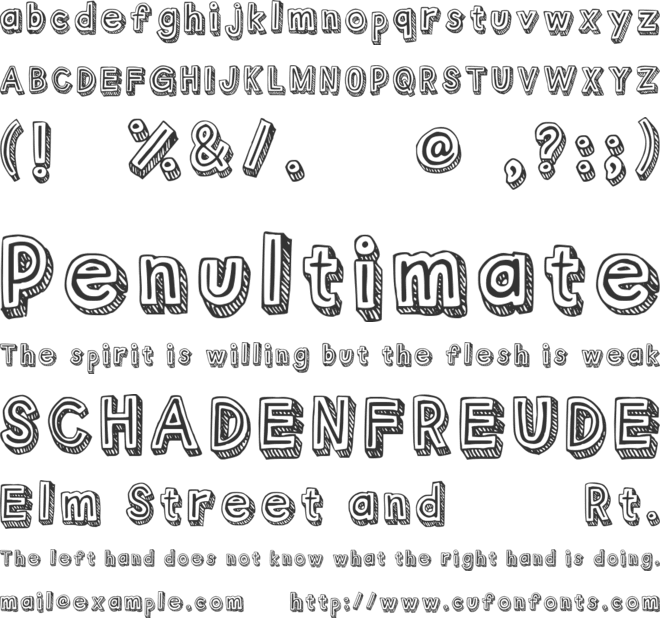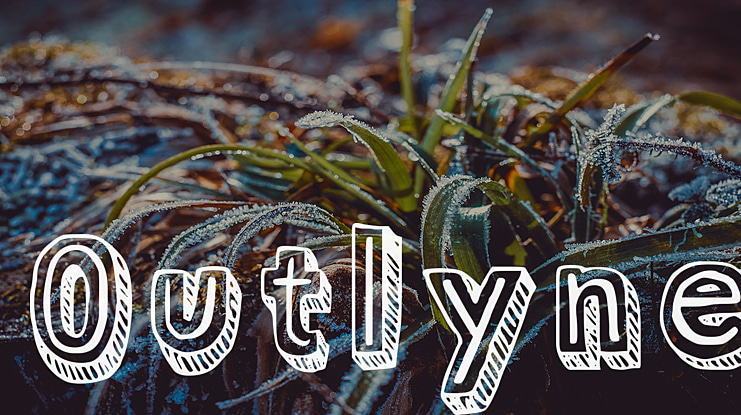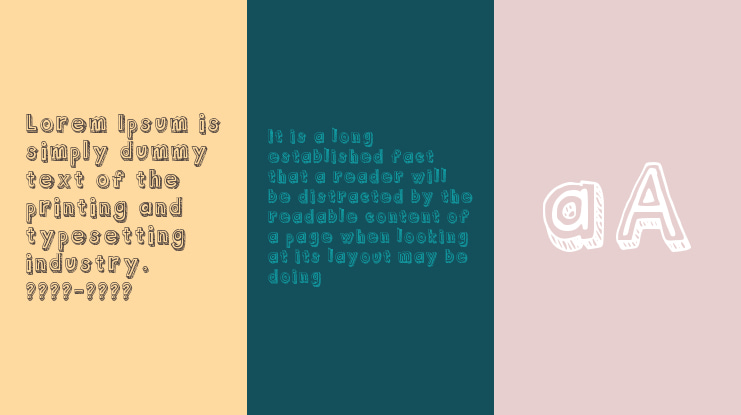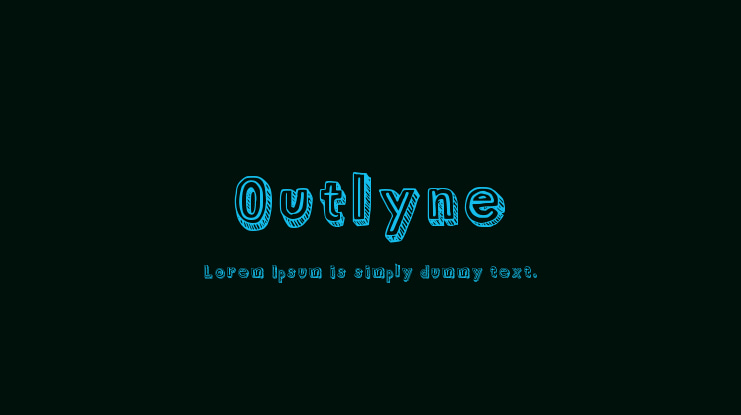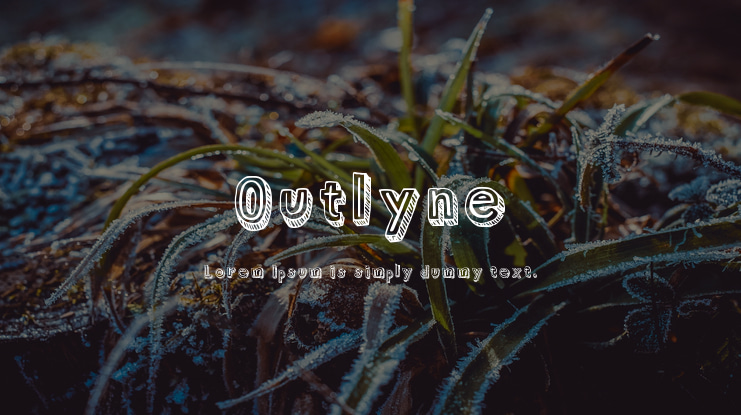
Outlyne Font
This is a fun font that you can use to liven up your text. It's done by freehand so it has a folksy feel to it. Try it all caps to make a bold statement! Please attribute to me "CALEJ" and/or link to my site if you use it online http://calej.blogspot.com